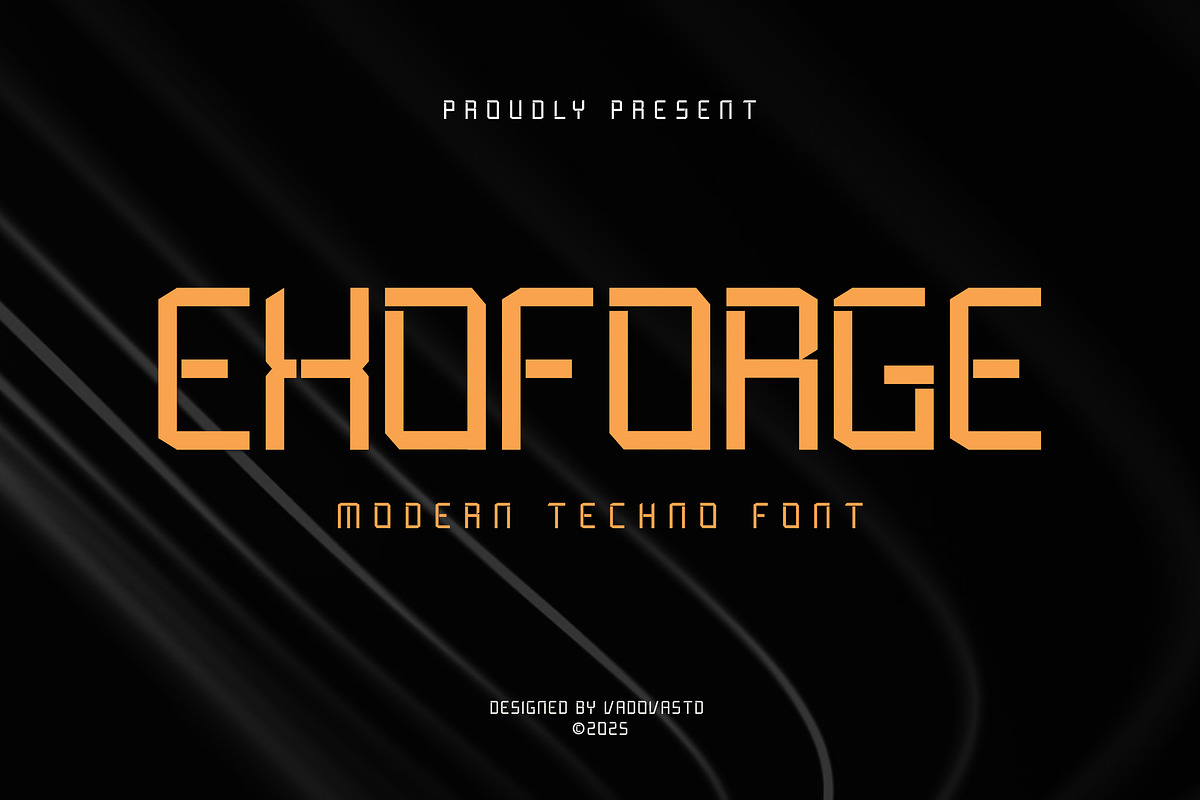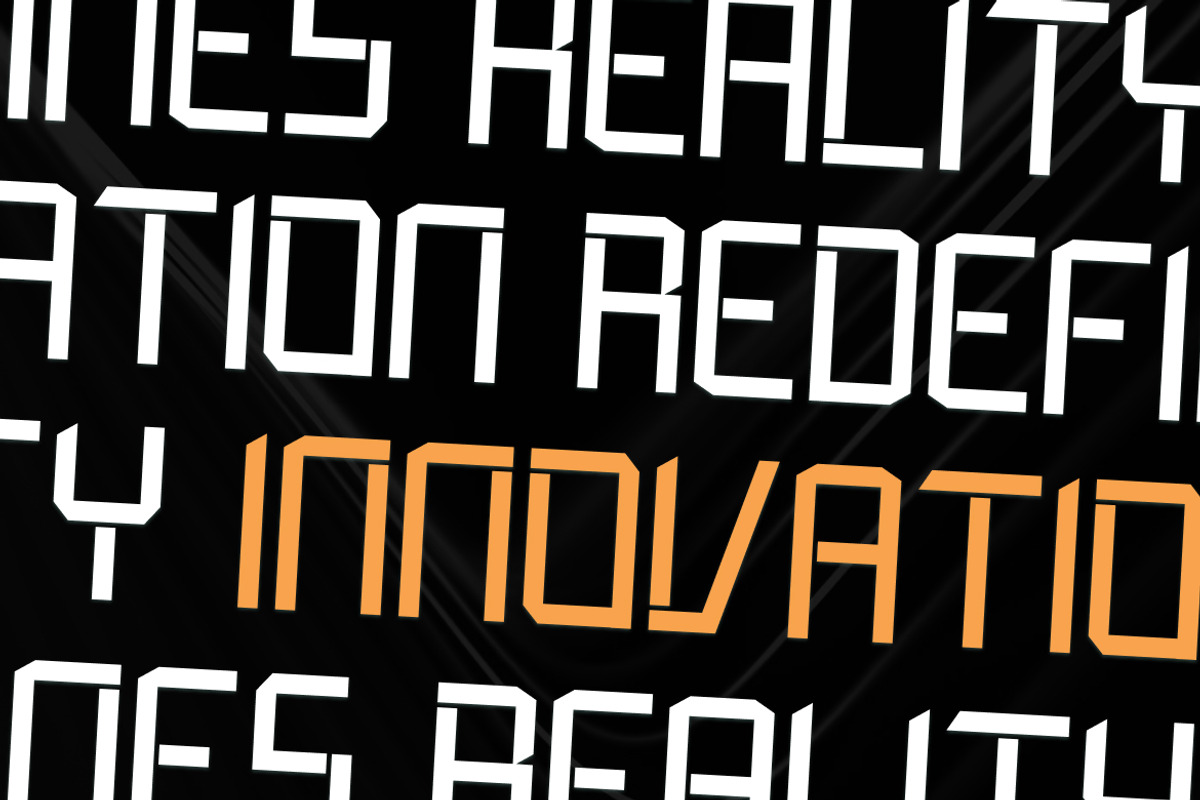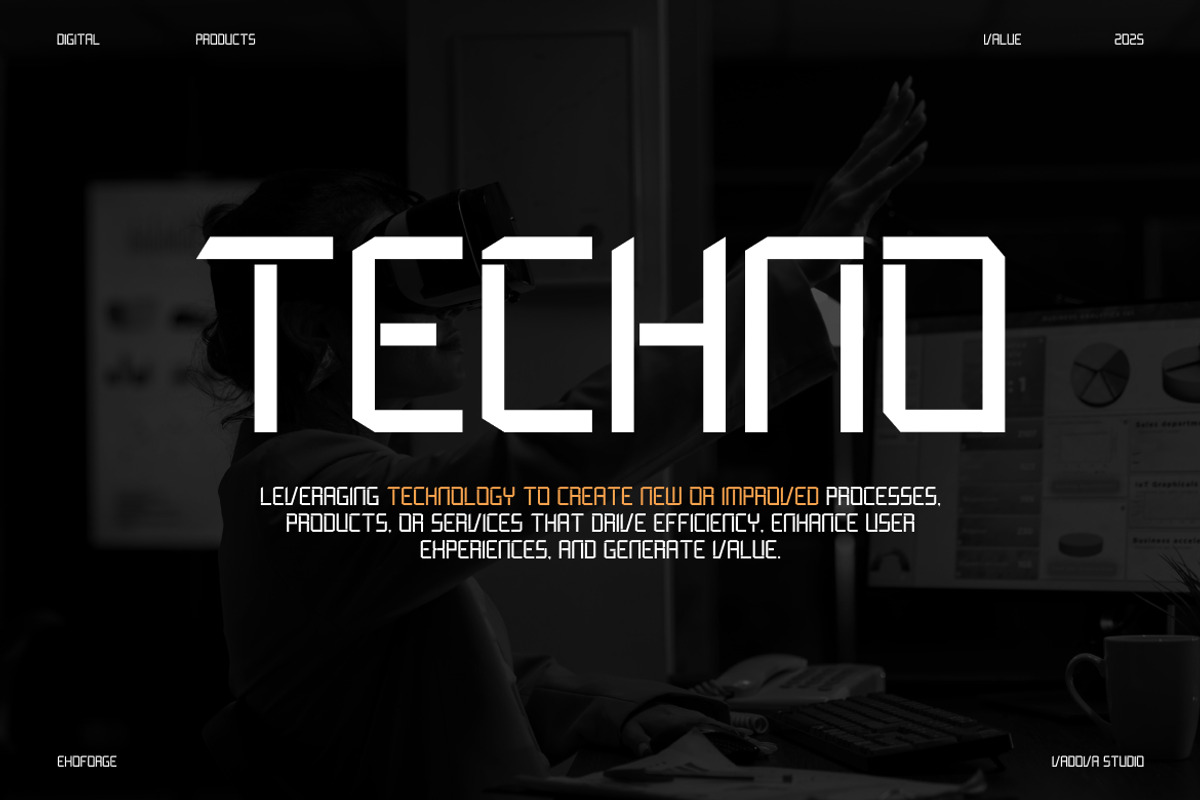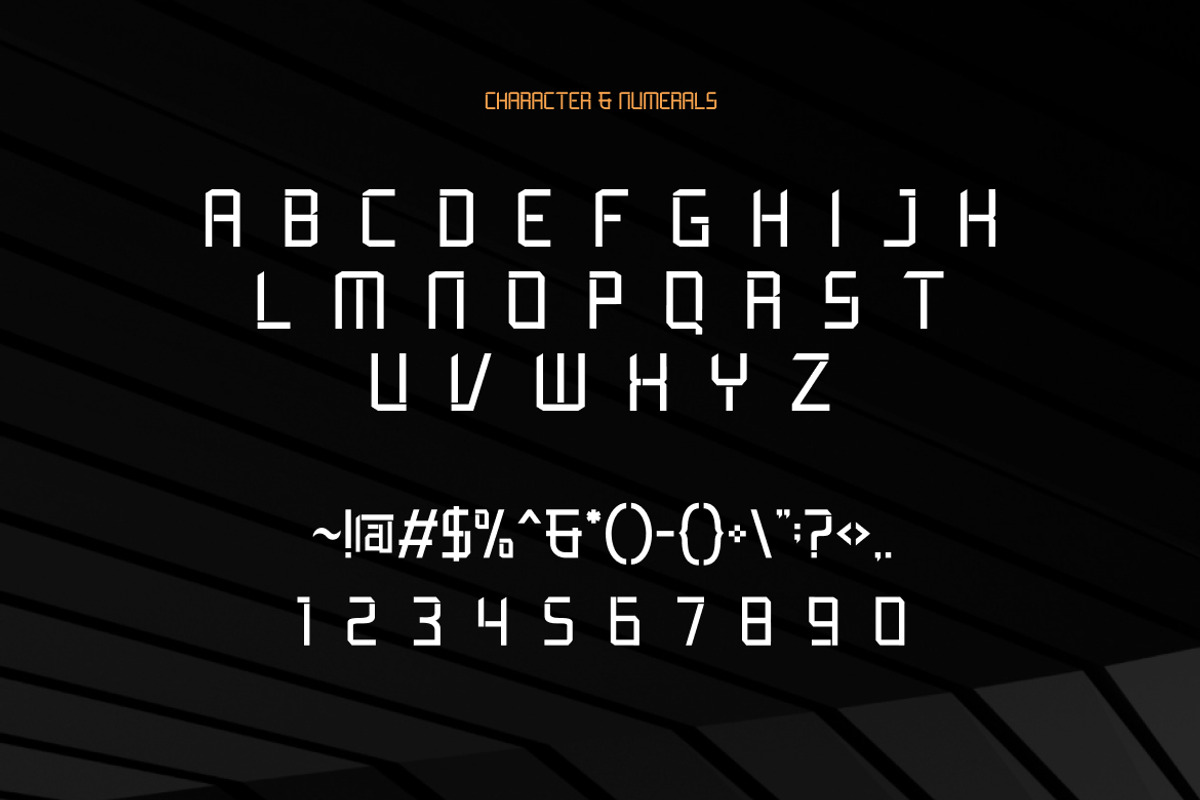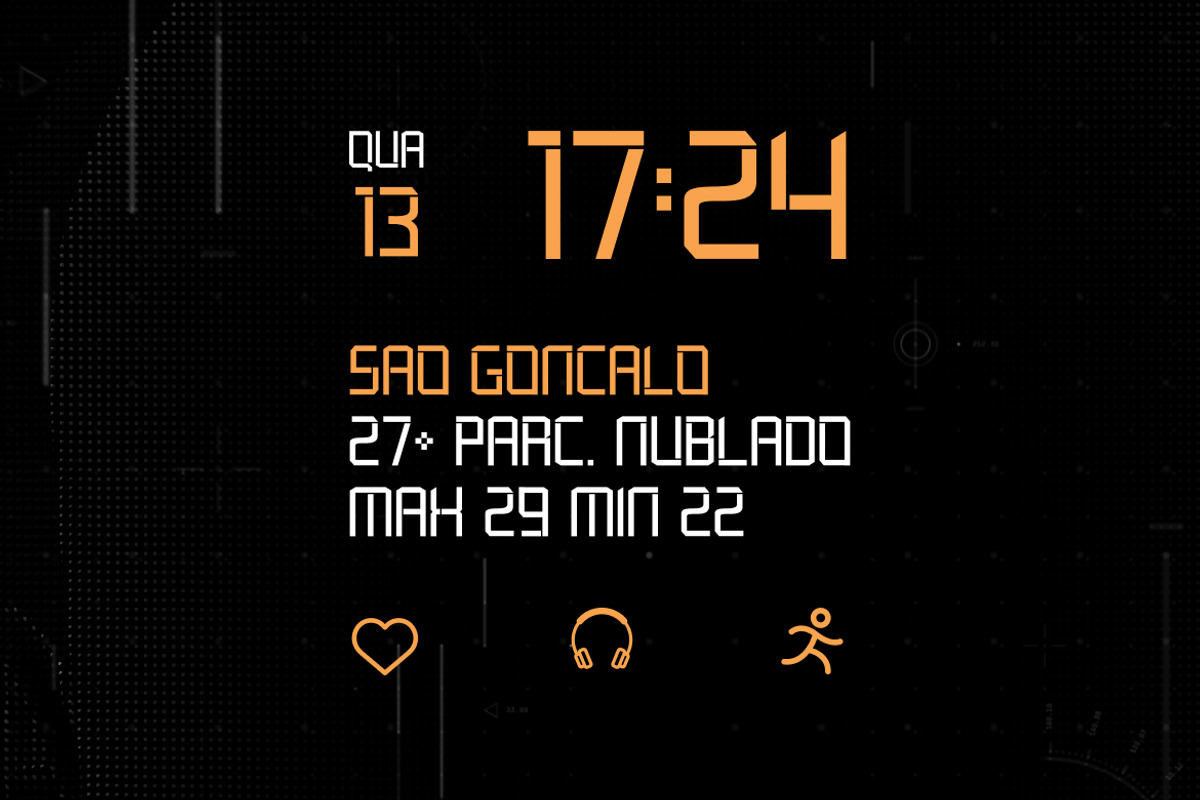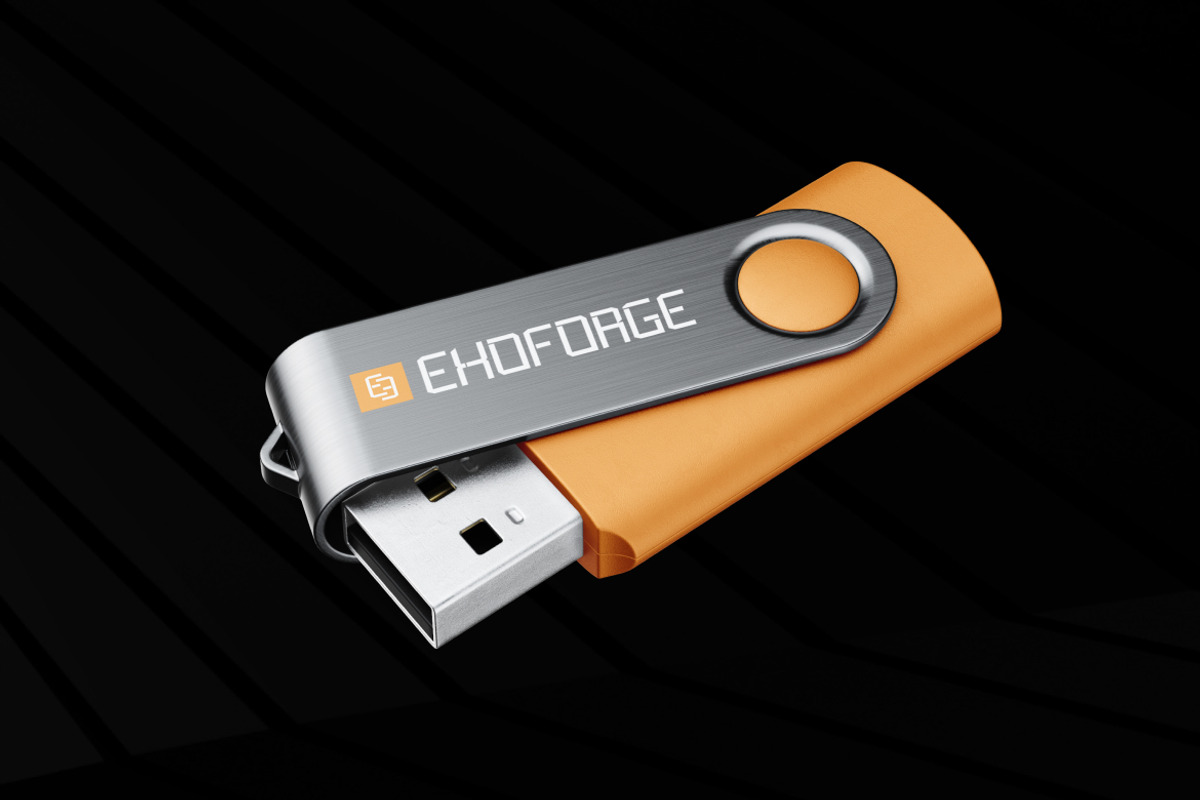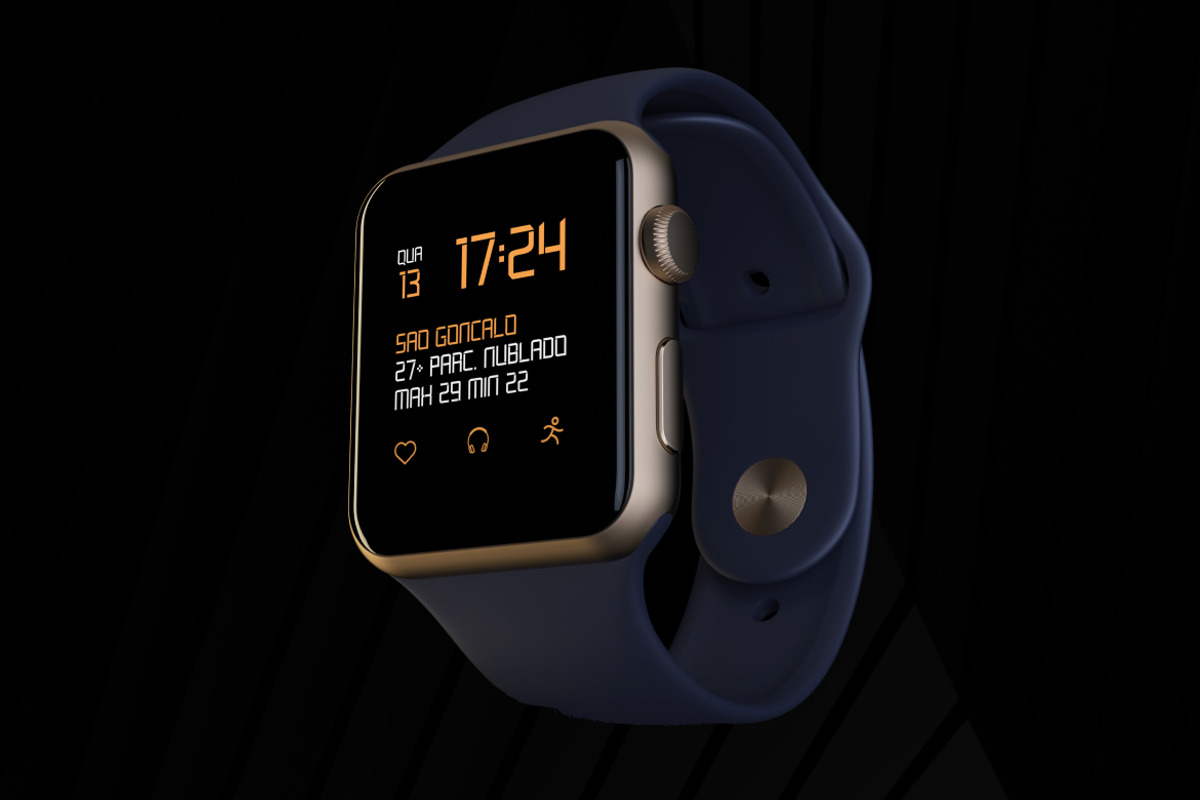
Exoforge Modern Techno Font
Exoforge is a modern techno typeface built for the digital age a precision-cut display font that fuses high-tech aesthetics with futuristic energy. Crafted for innovators, coders, engineers, and designers, Exoforge delivers a visual language of progress, motion, and next-gen thinking. Whether you’re designing a UI interface, tech product branding, or sci-fi game titles, Exoforge empowers your design with sleek geometry and unmistakable impact.
Inspired by cybernetic systems, smart tech devices, and modular grids, Exoforge features angular cuts, squared counters, and monospaced flair. Its futuristic design is both readable and bold. This font is built for screens, where clarity meets digital style.
Each letterform is engineered to communicate speed, data, and evolution. Its sharp corners and straight edges lend a mechanical feel that resonates with futuristic themes, while its consistent rhythm creates a tech-savvy presence in titles, overlays, and motion graphics.
- Techno-futuristic style with sharp corners and squared counters for modern, digital appeal
- Display structure with modular letterforms ideal for headlines and high-impact visuals
- Inspired by sci-fi, tech, and innovation culture perfect for esports, devices, UI/UX, and - dashboards
- All caps with numerals and symbols for functional and bold design expression
- Multilingual support ready for global tech branding
- Engineered for clarity on screens and interfaces
- Perfect for startup pitches, wearable tech, and gaming apps
- Ideal for futuristic branding, motion design, and software UI
Relevance and Use Cases app dashboards, wearable tech visuals, esports branding, digital product packaging, UI/UX interfaces, smartwatch mockups, or any layout where digital precision is key.